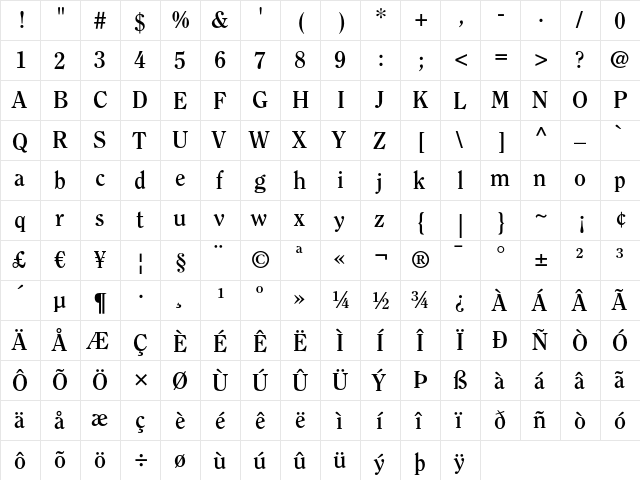
ITC Clearface LT Bold Font Preview
ITC Clearface LT Bold
Design Context for ITC Clearface LT Typeface
ITC Clearface LT takes a measured approach to typography — its balanced proportions and neutral character make it a reliable workhorse for both digital and print work. Its bold stroke weight gives it real presence on the page.